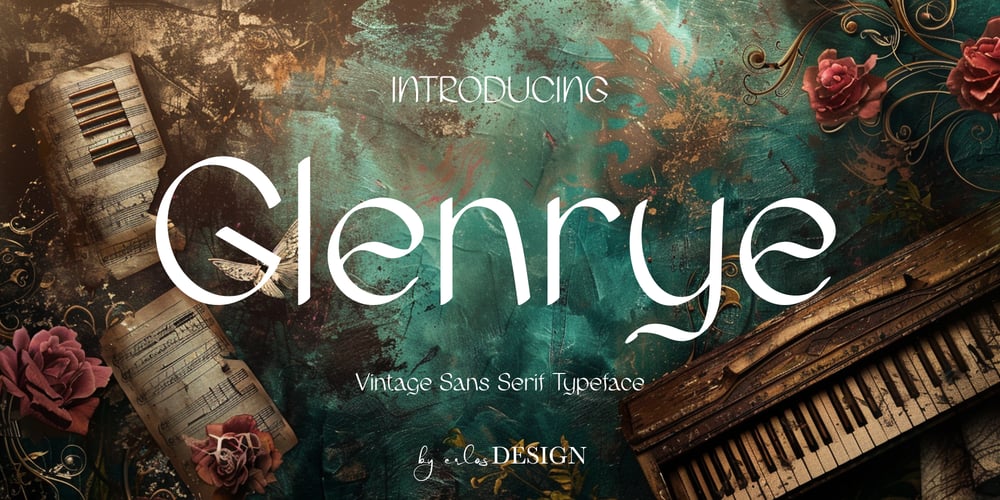
Glenrye Font Family was designed by Erlangga Suherman and published by ErlosDesign. Glenrye contains 1 styles and family package options. This is Glenrye, a vintage – style display font offers a unique and distinctive appearance, making it stand out in various design projects. Its vintage aesthetic brings a sense of nostalgia and classic charm, perfect forconveying a retro vibe or adding a touch of old-world elegance to any design.